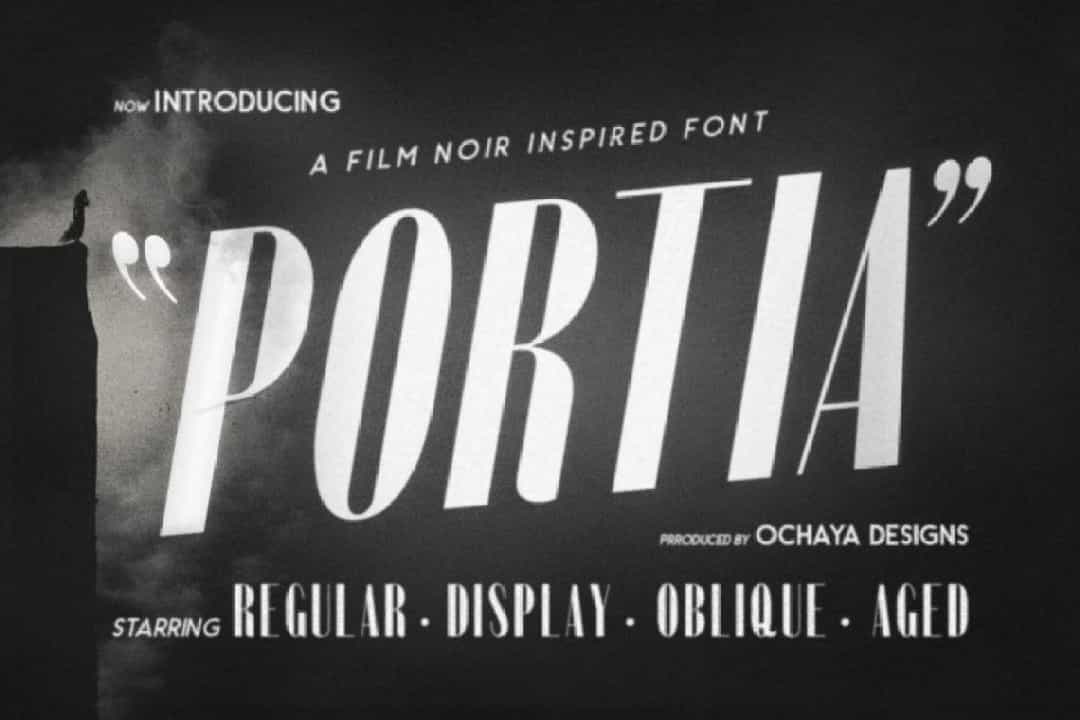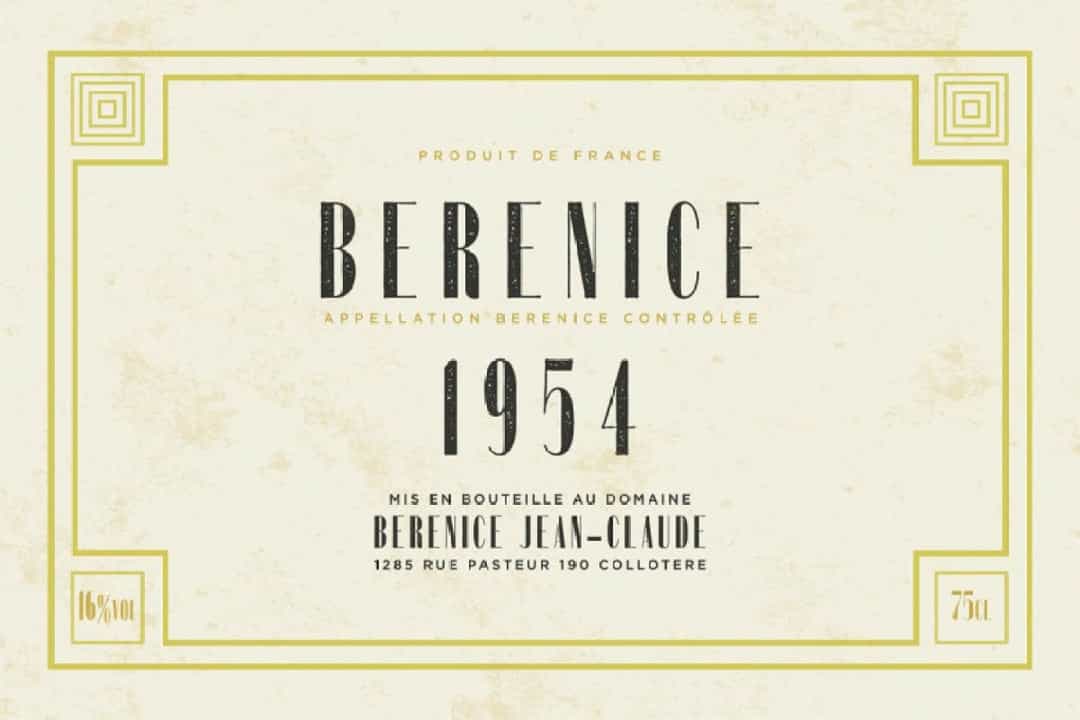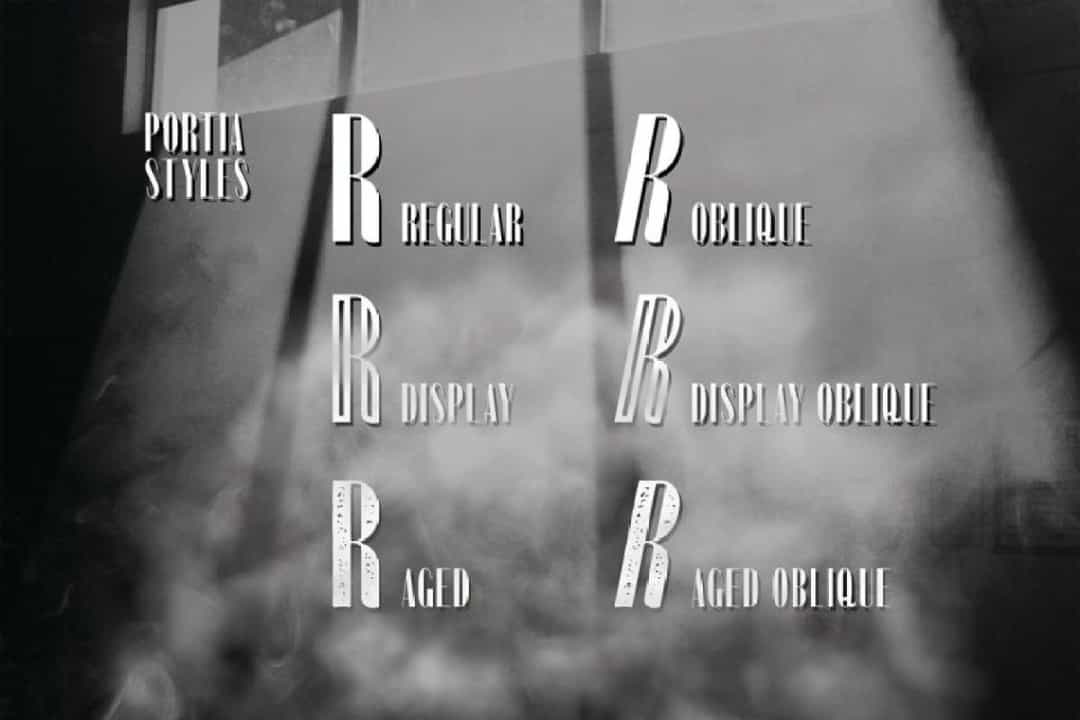
Portia is a modern, non-serif font that can be used for any conceptional works as a basis. This modern, tall font was developed by Ochaya Designs and the base for this font was drawn from films of the noir variety.